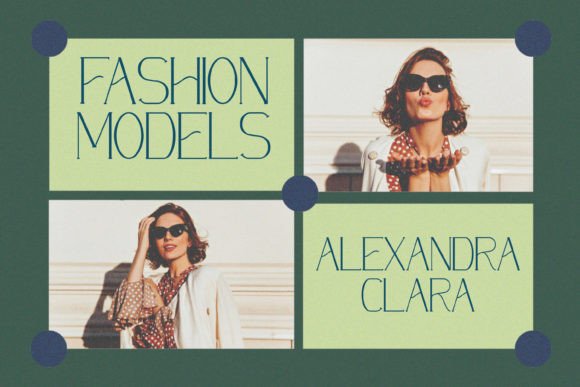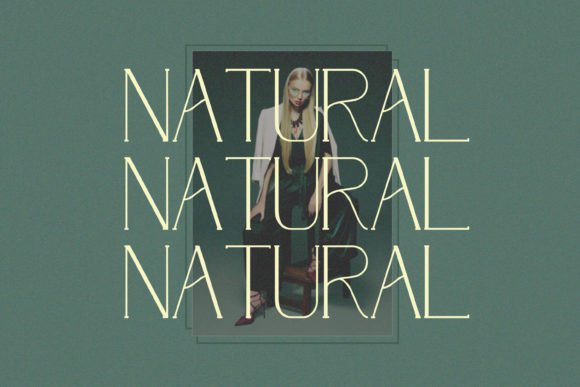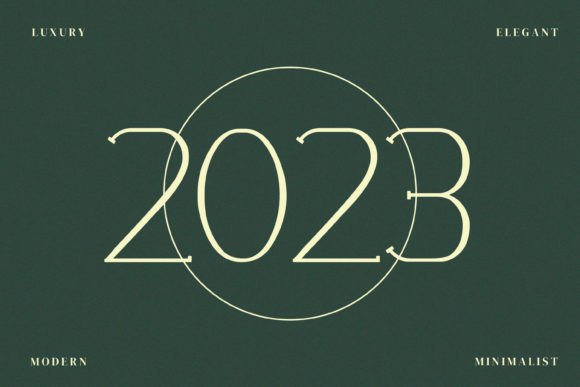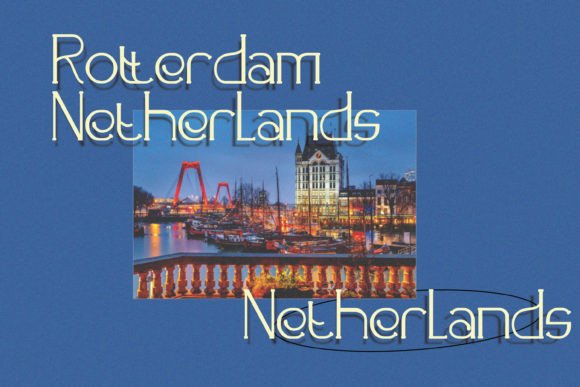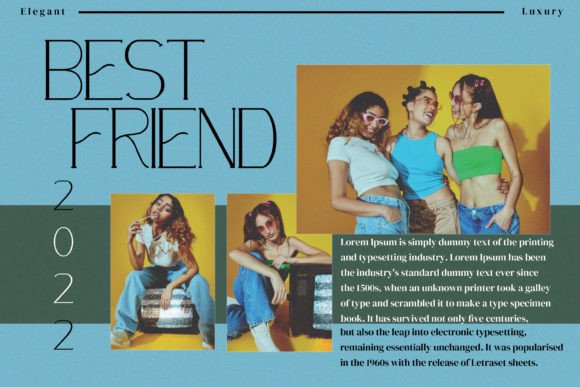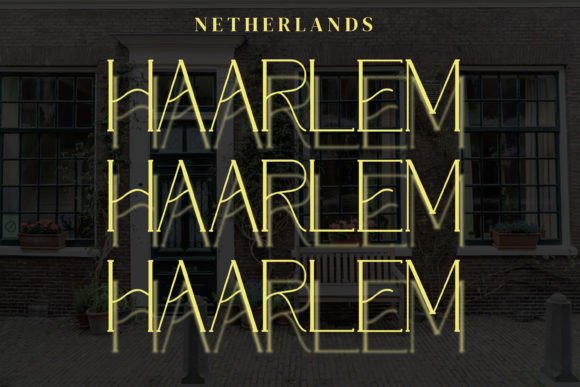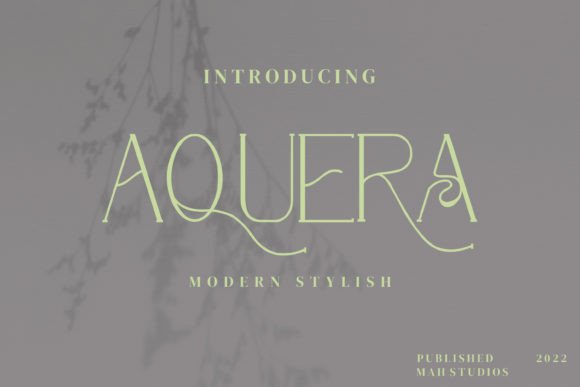
Aquera Font: Elevate Your Designs with Elegance and Sophistication
In the world of typography, a font can make or break a design. A well-chosen font can elevate a creation from ordinary to extraordinary, while a poorly chosen one can detract from the overall impact. For designers and crafters looking to add a touch of elegance and sophistication to their work, look no further than the Aquera Font. This stylish and elegant serif font is a versatile addition to any font library, capable of enhancing any project with its refined charm.
The Characteristics of Aquera Font
Aquera is a serif font that exudes classic sophistication. Its elegant lines, refined curves, and precise details make it an ideal choice for a wide range of design applications. Whether you’re working on a branding project, a website, a print publication, or a craft project, Aquera’s versatility ensures it will complement your work beautifully.
One of the standout features of Aquera is its PUA (Private Use Area) encoding. This means that the font includes a vast array of glyphs and ligatures, easily accessible to enhance your designs. PUA encoding allows designers to access these additional characters with ease, providing greater flexibility and creativity in their work.
Why Choose Aquera Font?
So, what sets Aquera apart from other fonts? Here are a few reasons why designers and crafters are drawn to this exceptional font:
- Elegance and Sophistication: Aquera’s classic serif design lends an air of elegance and sophistication to any project.
- Versatility: Suitable for a wide range of applications, from digital to print, and from branding to crafting.
- PUA Encoding: Easy access to a wide range of glyphs and ligatures, allowing for greater creative freedom.
- High Readability: Despite its elegant appearance, Aquera maintains high readability, making it suitable for body text as well as headings.
Applications of Aquera Font
The versatility of Aquera Font makes it suitable for numerous applications. Here are some of the ways you can use Aquera to elevate your designs:
- Branding and Logo Design: Create memorable and elegant logos with Aquera’s distinctive serif style.
- Web Design: Enhance your website’s typography with a font that is both stylish and readable.
- Print Publications: Add a touch of sophistication to your brochures, magazines, and books.
- Crafting and DIY Projects: Perfect for crafters, Aquera can be used in digital crafting projects, such as printable art, planners, and journals.
Tips for Using Aquera Font Effectively
To get the most out of Aquera Font, consider the following tips:
- Mix and Match: Combine Aquera with other fonts to create visual interest. Its serif elegance pairs well with sans-serif fonts for a classic look.
- Play with Sizes: Use Aquera in various sizes to create hierarchy and emphasis in your designs.
- Experiment with Colors: While Aquera looks stunning in black and white, don’t be afraid to experiment with colors to match your brand or project’s aesthetic.
- Utilize Ligatures and Glyphs: Take advantage of Aquera’s PUA encoding to add unique touches to your designs.
Aquera Font is a stylish and elegant serif font that can significantly enhance your designs. Its versatility, combined with its PUA encoding for easy access to glyphs and ligatures, makes it an invaluable asset to any designer’s or crafter’s font library. Whether you’re working on a professional project or a personal crafting endeavor, Aquera is sure to bring a level of sophistication and elegance that elevates your work to new heights. So, why settle for ordinary when you can create something extraordinary with Aquera Font?